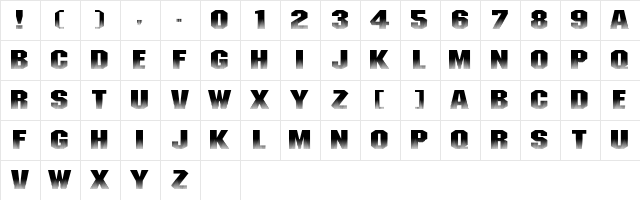
InvisibleKiller Regular
InvisibleKiller takes a measured approach to typography — its balanced proportions and neutral character make it a reliable workhorse for both digital and print work.